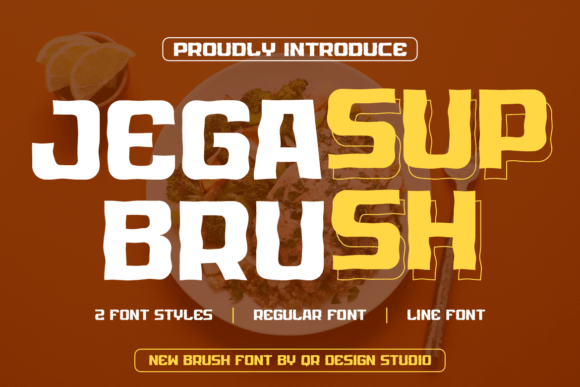
Get ready to dive into the world of enchanting typography with Jegasup Brush Line, the font that exudes charm and character like no other. This decorative font is a masterpiece crafted by qrdesignstd, specifically designed to turn your creative visions into vibrant realities. Let the playful strokes of Jegasup Brush Line illuminate your designs, bringing a sense of joy and individuality that captivates the hearts of all who behold it.
Imagine your words dancing across the page, adorned with the whimsical curves and expressive strokes of Jegasup Brush Line. Its carefully crafted characters exude an irresistible charm, inviting readers to immerse themselves in the world you create. Whether you're crafting logos, posters, social media posts, or any other design project, Jegasup Brush Line will elevate your creations to new heights.
With Jegasup Brush Line by your side, ordinary text transforms into a captivating spectacle. Its unique style adds a touch of playfulness and personality that resonates with audiences, leaving a lasting impression. Unleash your creativity and watch as your designs come alive with a charm that is uniquely Jegasup Brush Line.
So why settle for ordinary fonts when you can embark on an extraordinary typographic journey with Jegasup Brush Line? Experience the magic of this decorative font and witness the transformation it brings to your designs. Let Jegasup Brush Line be your creative companion, guiding you towards typographic excellence.